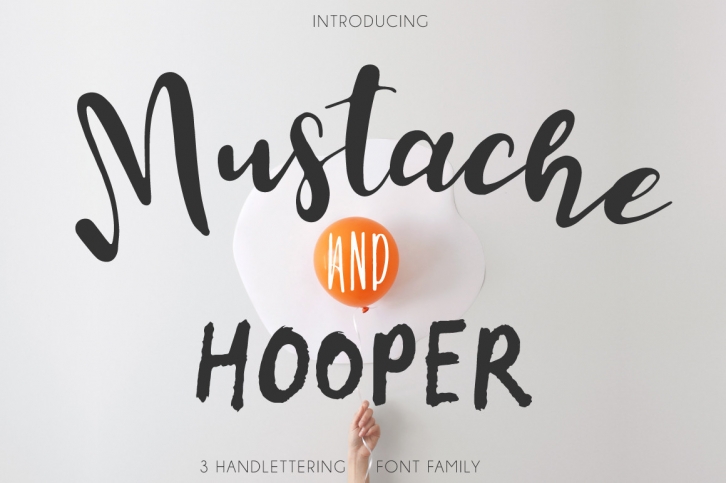
Mustache Hooper Carmensita Trio is a stunning and comprehensive trio font (script, display and sans serif), ideal for giving your projects a branded but friendly feel. The two included styles can be combined together perfectly but are also beautiful on their own.